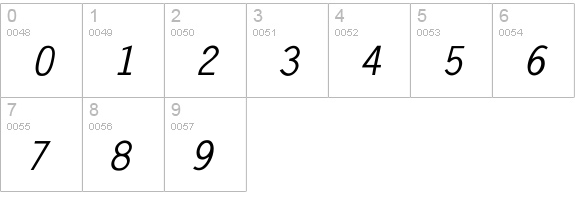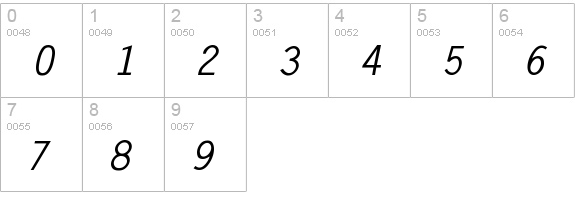
LetterGothic-BoldItalic is a bold and stylish font that combines the elegance of italics with the strong presence of bold. It is the perfect choice for those who want to add a touch of sophistication and modernity to their designs. This font features sleek and smooth letterforms with just the right amount of curvature, making it visually appealing and easy to read. With its unique blend of boldness and italics, LetterGothic-BoldItalic stands out from the crowd and adds a dynamic and eye-catching element to any project. Whether you're designing a logo, creating a poster, or crafting a professional document, this font is sure to make a lasting impression. What makes LetterGothic-BoldItalic even more special is that it is available for free download at FontsMarket.com. Yes, you read that right – you can enjoy the beauty and versatility of this font without spending a single penny. FontsMarket.com is a trusted source for high-quality fonts, and they offer LetterGothic-BoldItalic as a free download to all designers and enthusiasts. So why wait? Add a touch of elegance and boldness to your designs with the stunning LetterGothic-BoldItalic font. Download it for free at FontsMarket.com and unleash your creativity today.